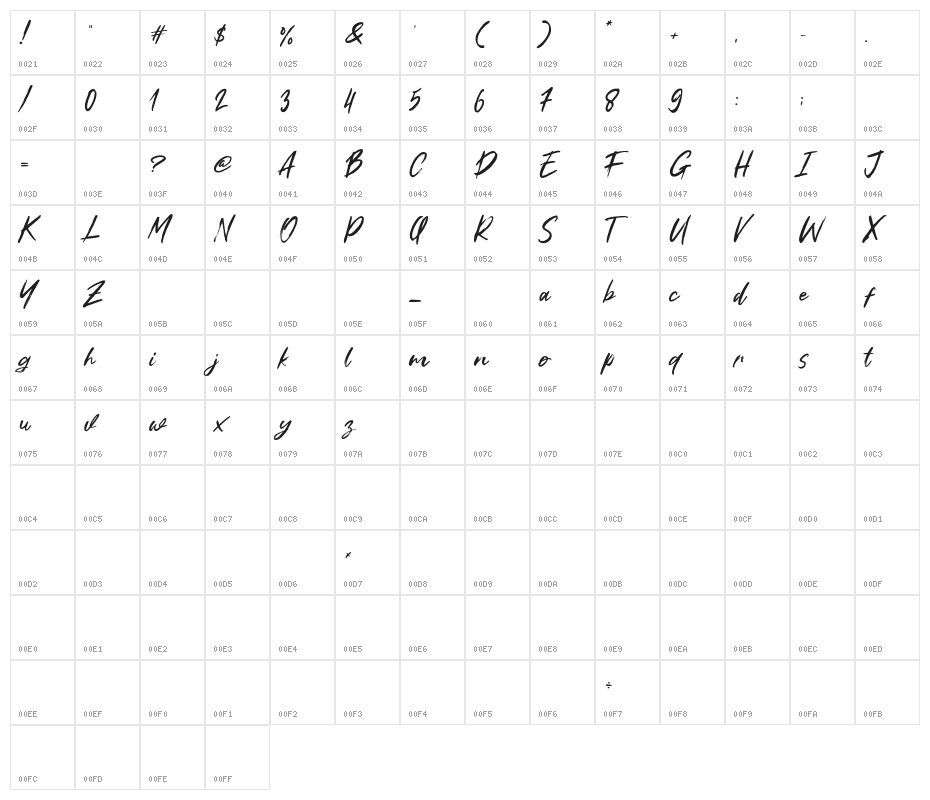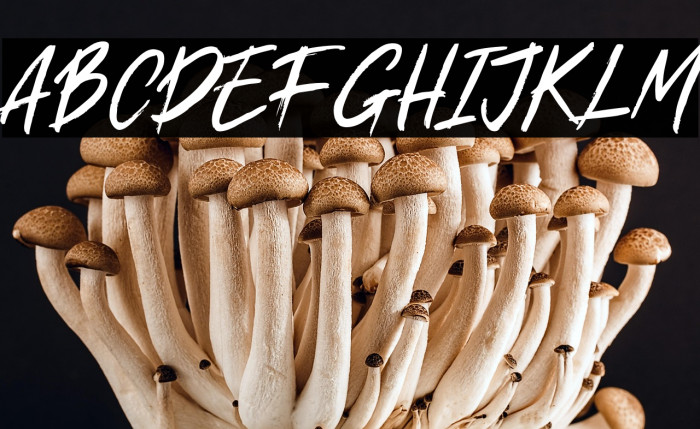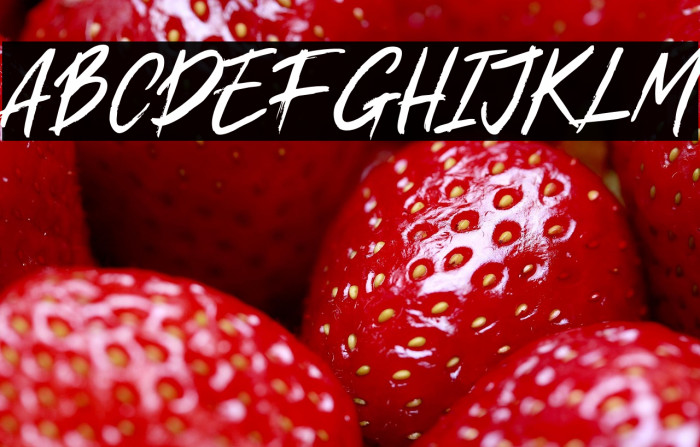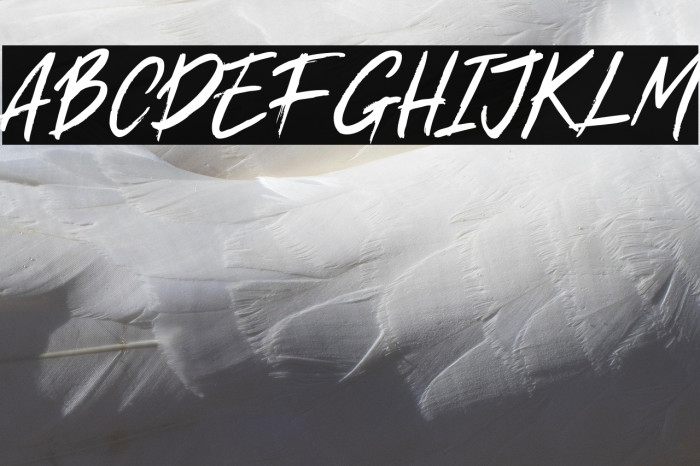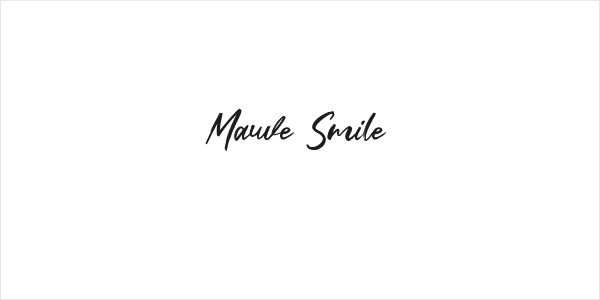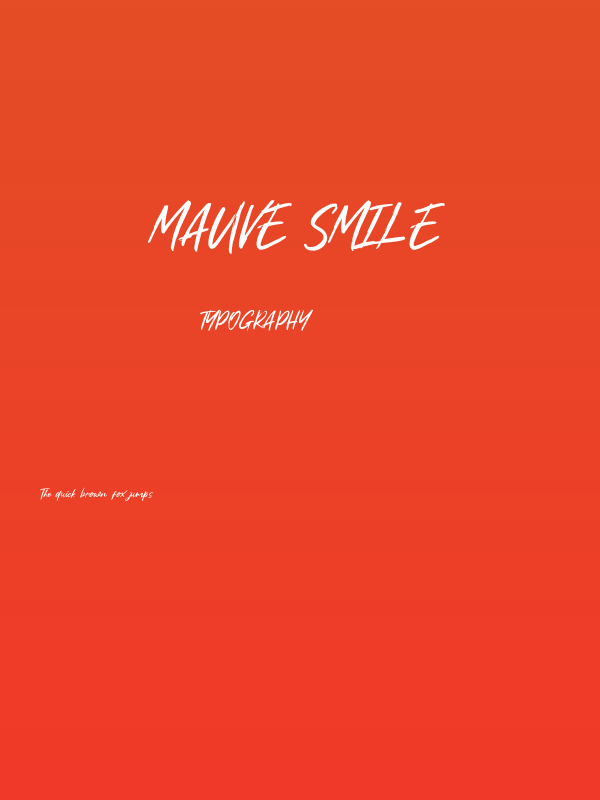
Mauve Smile Font
Mauve Smile Description
This font exudes a dynamic and energetic vibe with its bold, brush-like strokes. The uppercase letters are striking and assertive, while the lowercase characters maintain a fluid and connected style, reminiscent of modern calligraphy. The numbers and special characters follow the same expressive design, making them stand out with a unique flair. The overall appearance is both artistic and contemporary, suitable for projects that require a touch of creativity and boldness.
| Proposed Projects | Ideal for branding, posters, social media graphics, and creative advertising campaigns. |